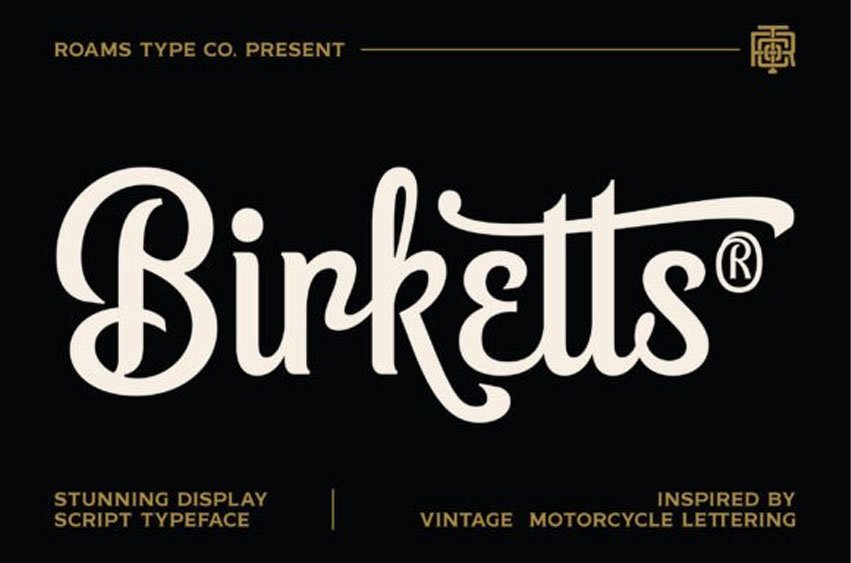
Birketts Font
Birketts Font is a vintage-style script font that evokes a sense of nostalgia and elegance. Its cursive strokes and elaborate flourishes give it a classic charm reminiscent of the bygone era.
Perfect for invitations, labels, and branding projects, Birketts adds a touch of sophistication to any design. Embrace its timeless appeal and transport your audience to a vintage world.